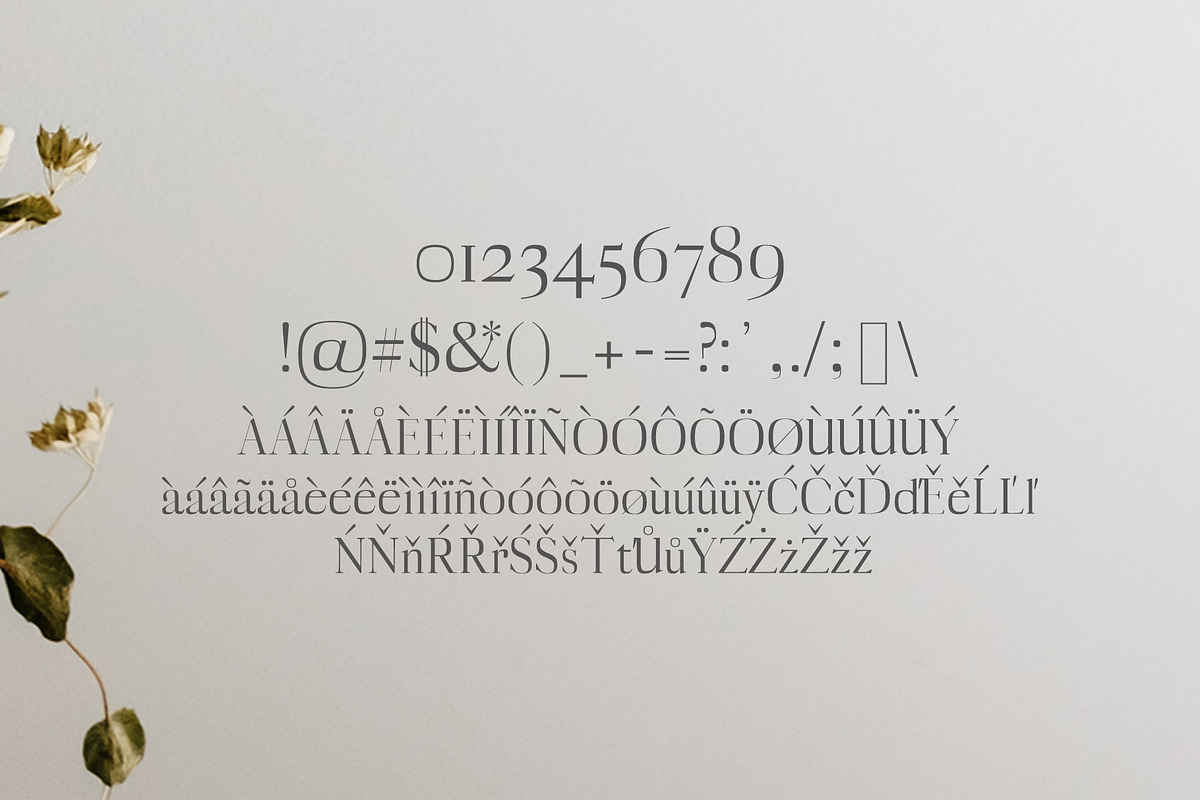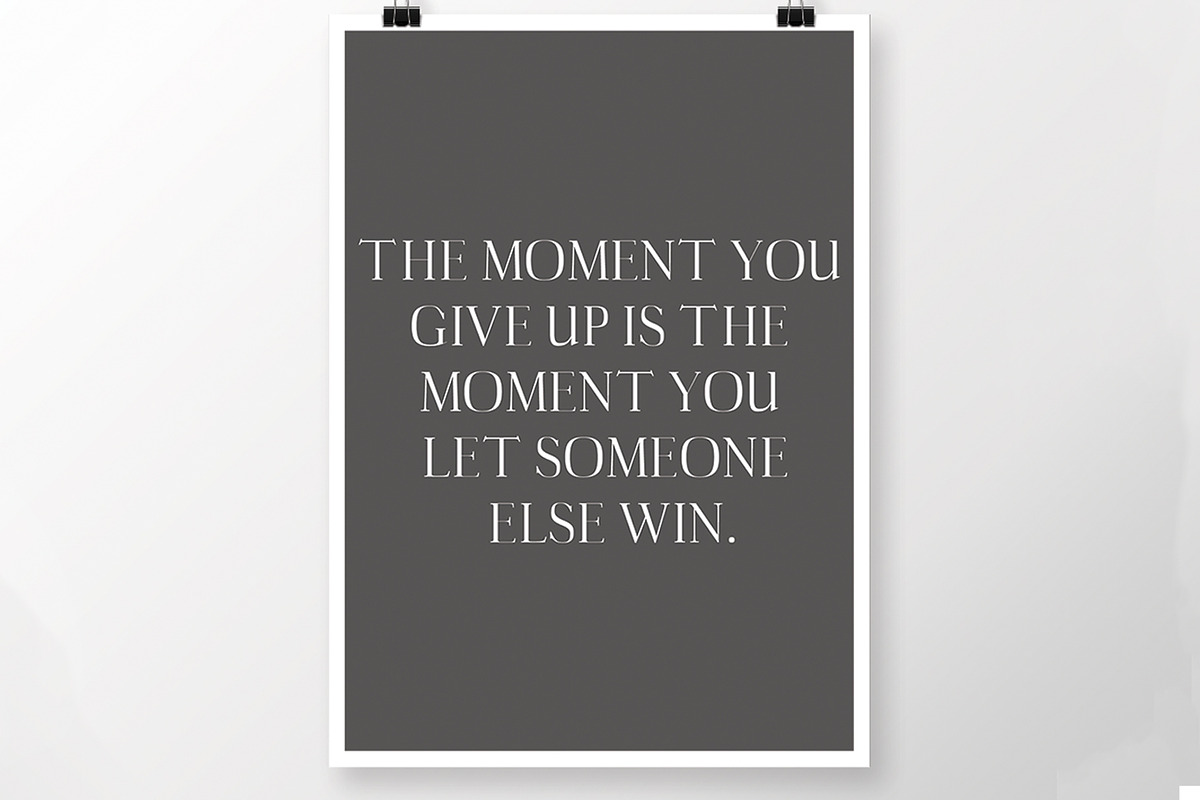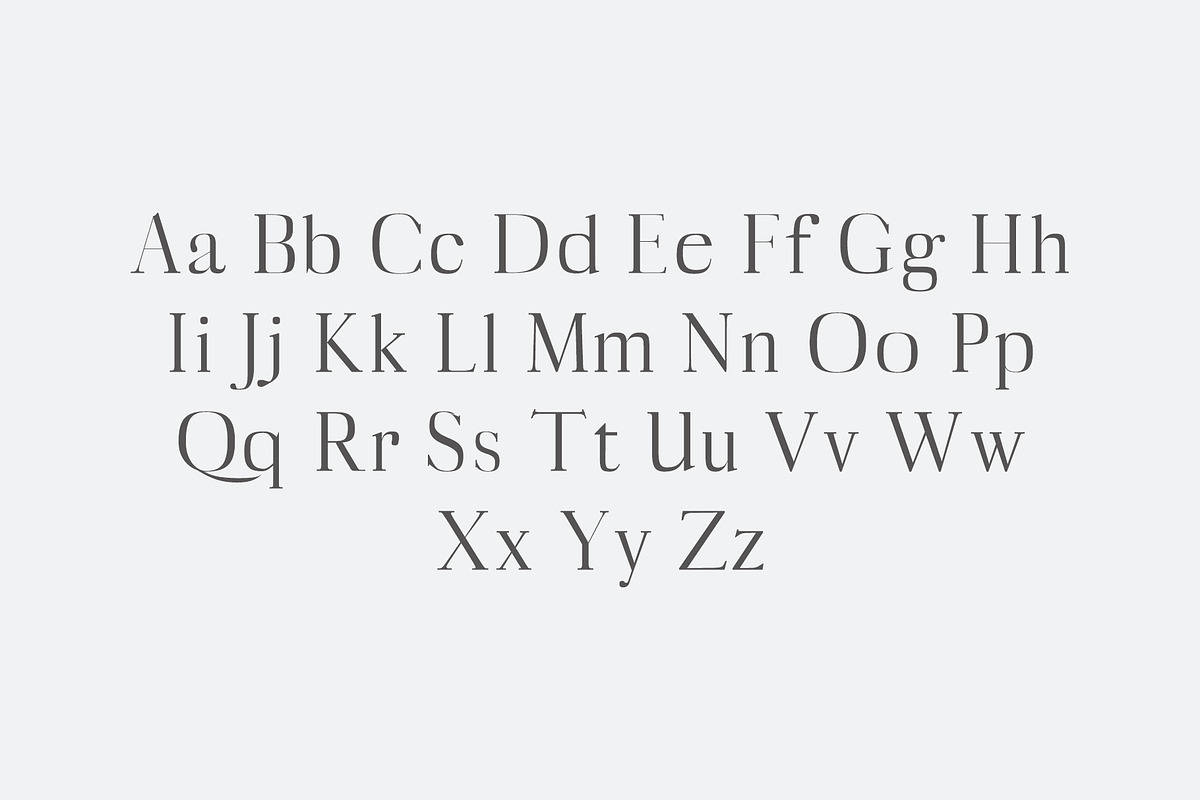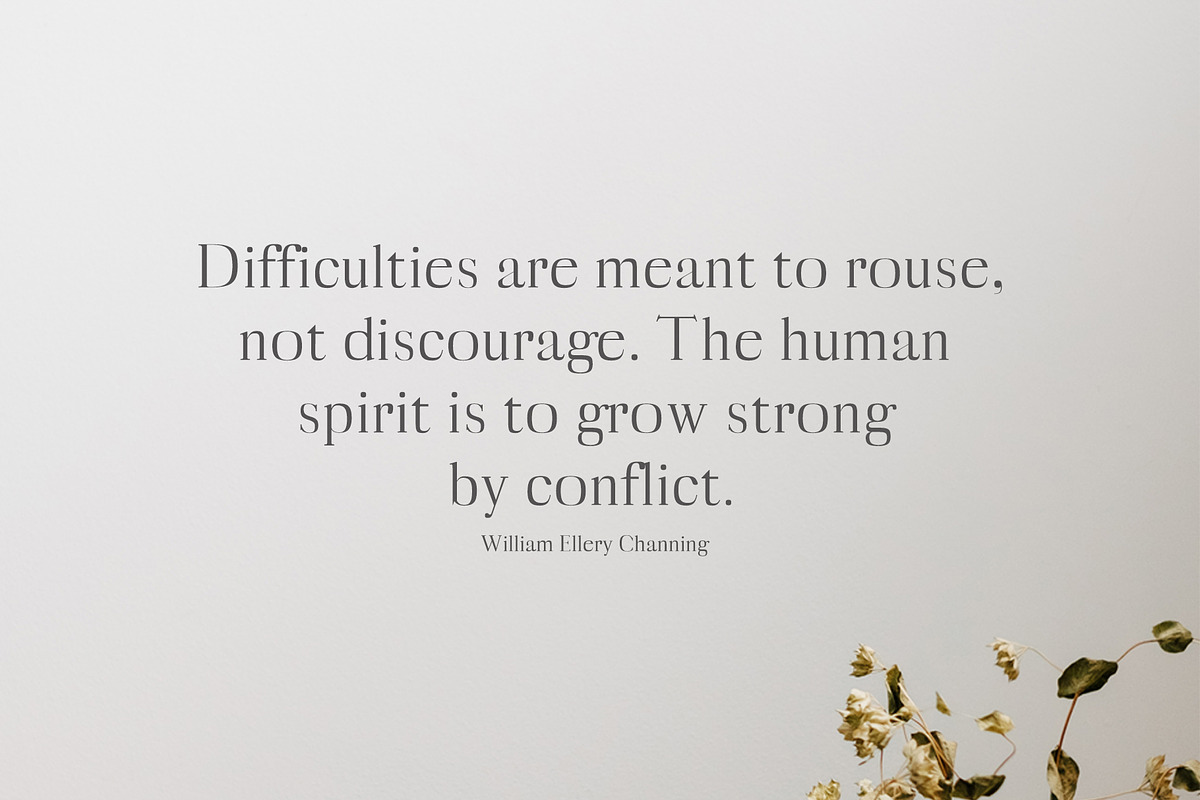
Myron Serif Fonts Family Pack
Myron Serif Fonts Family Pack by Creativetacos is a font selected for branding, posters, packaging, typography.
- Myron family contains 5 weights, from Light to Bold.
- Uppercase Multilingual Letters
- Lowercase Multilingual Letters
- Numbers & Punctuation
- Non English Characters ( Latin Supplement + Latin Extended A)
- Myron Thin
- Myron Light
- Myron Regular
- Myron Medium
- Myron Bold
Myron Serif Fonts Family Pack by Creativetacos fits naturally into Branding, posters, packaging, typography.